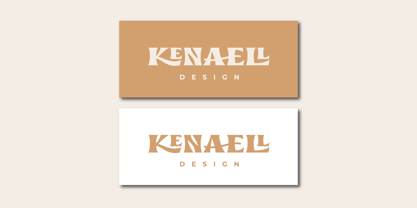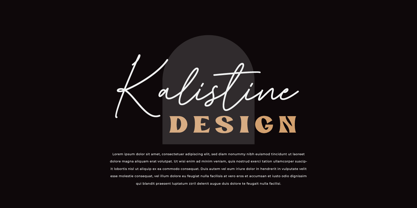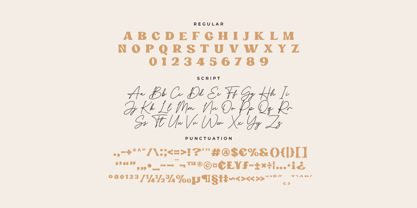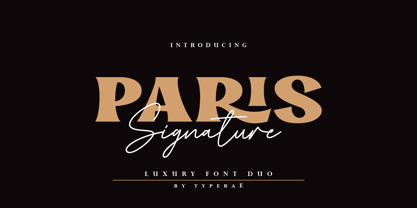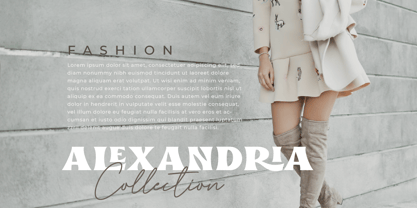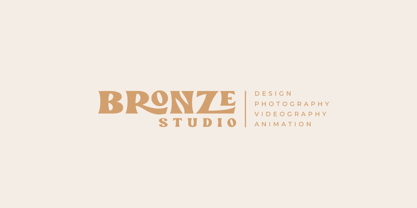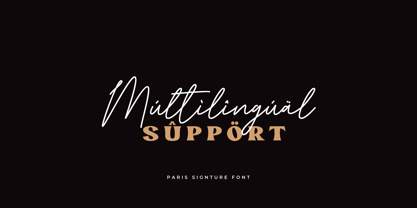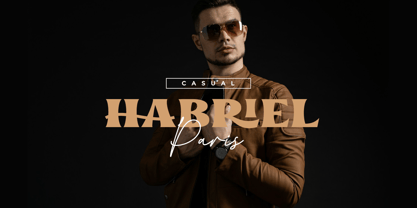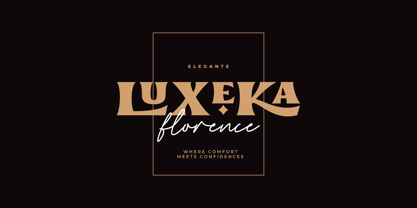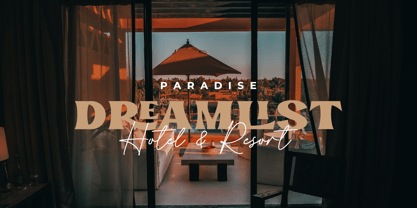
Paris Signature
by Typebae
The Paris Signature Font Family was designed by Iqbal Pauji and published by Typebae. Paris Signature contains 2 styles and family package options. More about this family
Paris Signature is a luxurious serif and a beautifully flowing handwritten script. Designed to work harmoniously together or stand strong on their own, this duo brings sophistication to any project, from branding and editorial to wedding invitations and packaging design. The serif font is timeless and classic, while the handwritten script adds a touch of personality and warmth. Paris Signature includes 37 elegant ligatures that activate automatically for a natural and polished look, along with stylistic alternates for A, E, I, O, and U to give your designs a customized flair.